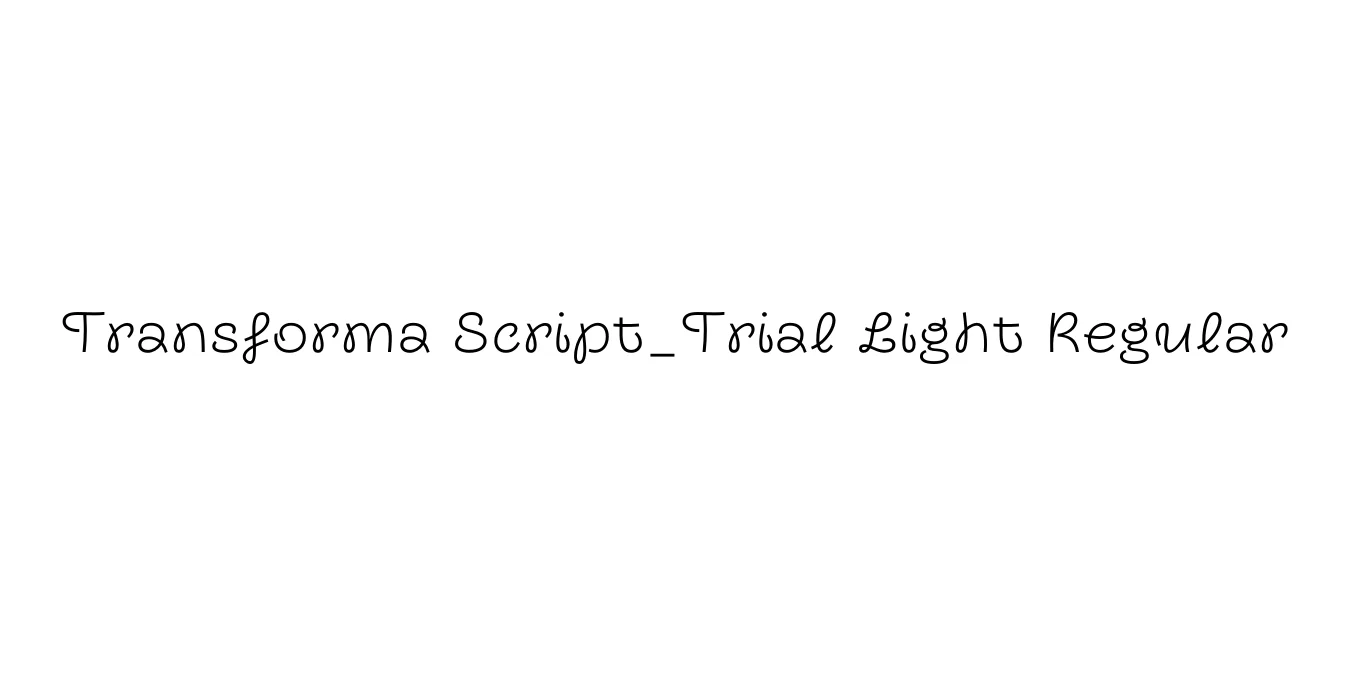
Transforma Script_Trial Light Regular
Designed by Cosimo Lorenzo Pancini, Francesco Canovaro, and Andrea Tartarelli (Zetafonts)
Transforma Script_Trial Light Regular is a sophisticated component of the larger Transforma font superfamily, an ambitious typographic project developed by the Zetafonts foundry. This specific weight offers a delicate, monolinear script aesthetic that captures the essence of modern, refined handwriting. Designed to provide a humanistic contrast to its sans and serif counterparts, the script variant emphasizes fluid connections and elegant proportions, making it a standout choice for high-end digital and print projects.
The development of the Transforma system focused on versatility and cross-genre compatibility. While the Script_Trial Light Regular weight appears effortless, it is built on a rigorous geometric foundation that ensures legibility across various screen resolutions. This trial version serves as a functional preview for designers, showcasing the typeface's ability to inject personality and an artisanal touch into branding, editorial layouts, and sophisticated packaging solutions.
Transforma Script_Trial Light Regular Best Uses
Excellent for boutique logos and high-end identity systems seeking a personal touch.
Adds a delicate and romantic aesthetic to formal stationery and event programs.
Perfect for quotes and overlays that require a stylish, hand-drawn appearance.
Ideal for luxury cosmetic or artisanal food products that value a humanistic feel.